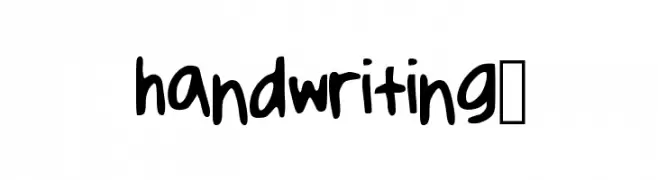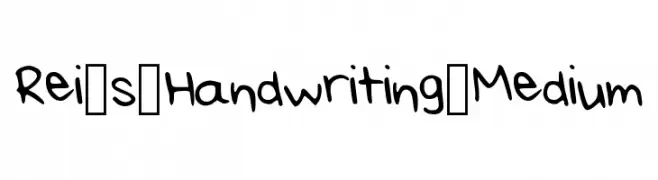
( Fonts by asiyah c )
A playful and casual handwritten font with bold, rounded strokes.
( Fonts by Rei K )
A playful, casual handwritten font with smooth, rounded letterforms.